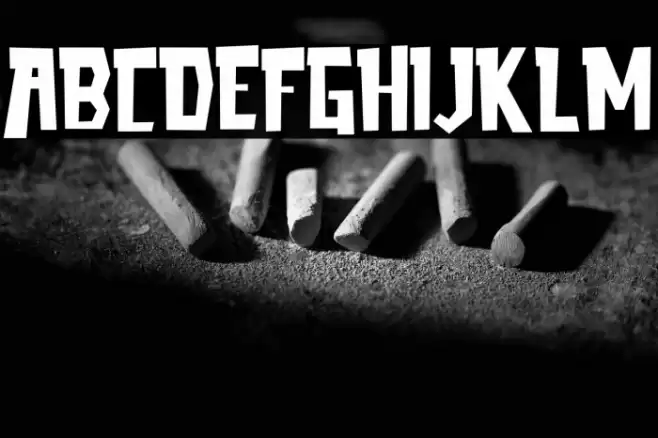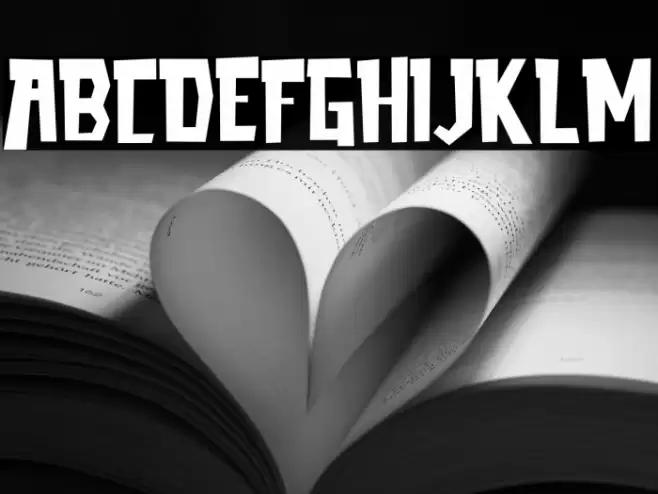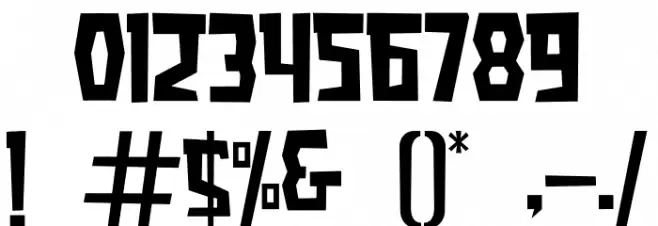
Armstrong Font
Armstrong Description
This font features a bold and angular design, characterized by its sharp edges and geometric forms. The uppercase letters are particularly striking, with a strong presence and a slightly condensed appearance. The lowercase letters maintain the same angular style, providing a cohesive look across different text sizes. Numbers and special characters are designed with the same boldness and angularity, ensuring consistency throughout. The font's unique style makes it suitable for attention-grabbing headlines and titles, where a modern and edgy aesthetic is desired.
A bold, angular font with sharp edges and a modern, geometric style from Uncategorized fonts.
- Proposed Projects: Ideal for use in posters, logos, branding materials, and any project requiring a bold, modern look.